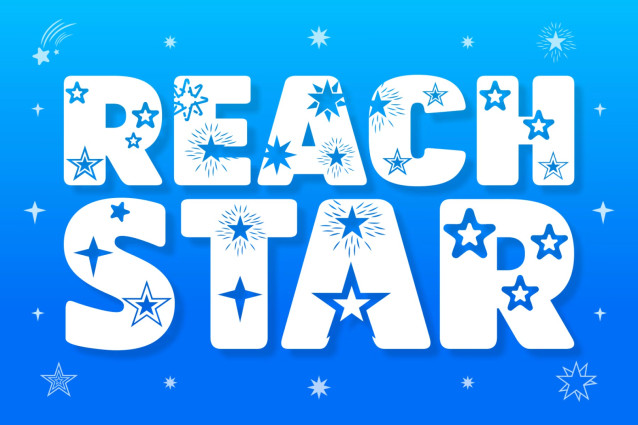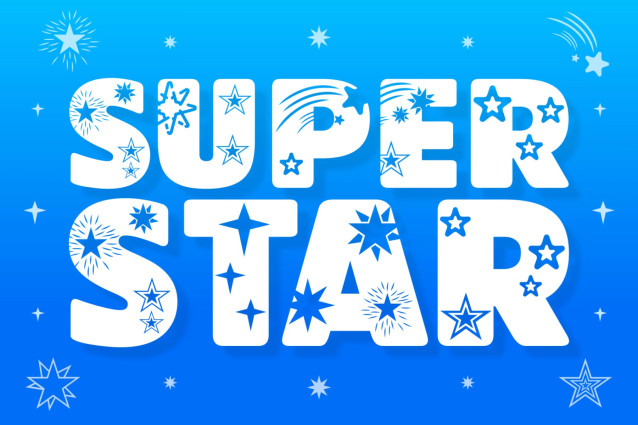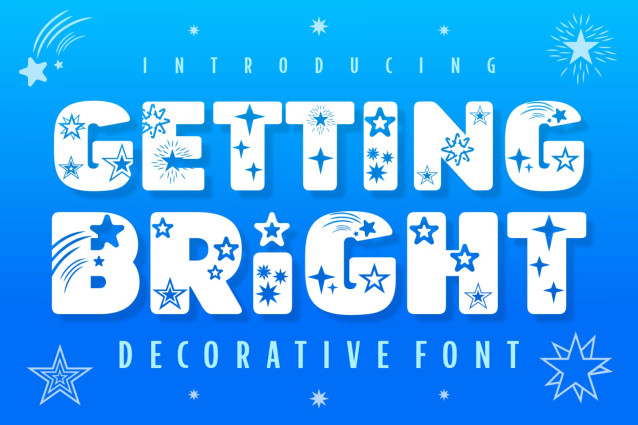
Getting Bright Font
Getting Bright is a starry and sparkling decorative font. No matter the topic, this font will be an incredible asset to your fonts’ library, as it has the potential to elevate any creation!